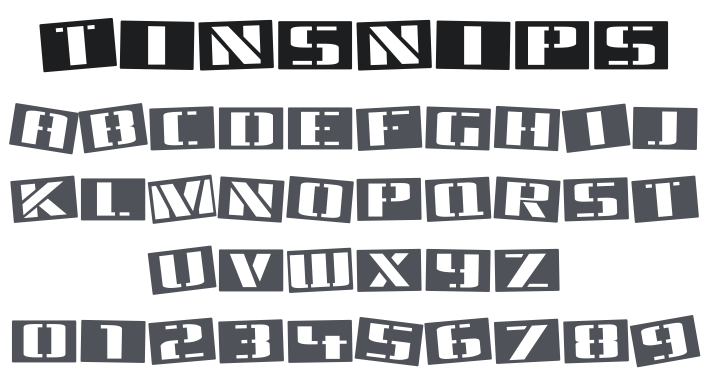
Tinsnips Font
About Tinsnips
Tinsnips is a tough, careening stencil display typeface that mimics the look of hand-cut metal stencil cards — bold, industrial letterforms with the characteristic stencil bridges and gaps, each character slightly tilted at varying angles as if the cards were loosely laid out. Alternating upper and lowercase prevents too many consecutive identical slants. Perfect for military-themed designs, industrial packaging, construction branding, survival game titles, and any headline needing gritty, no-nonsense authority.